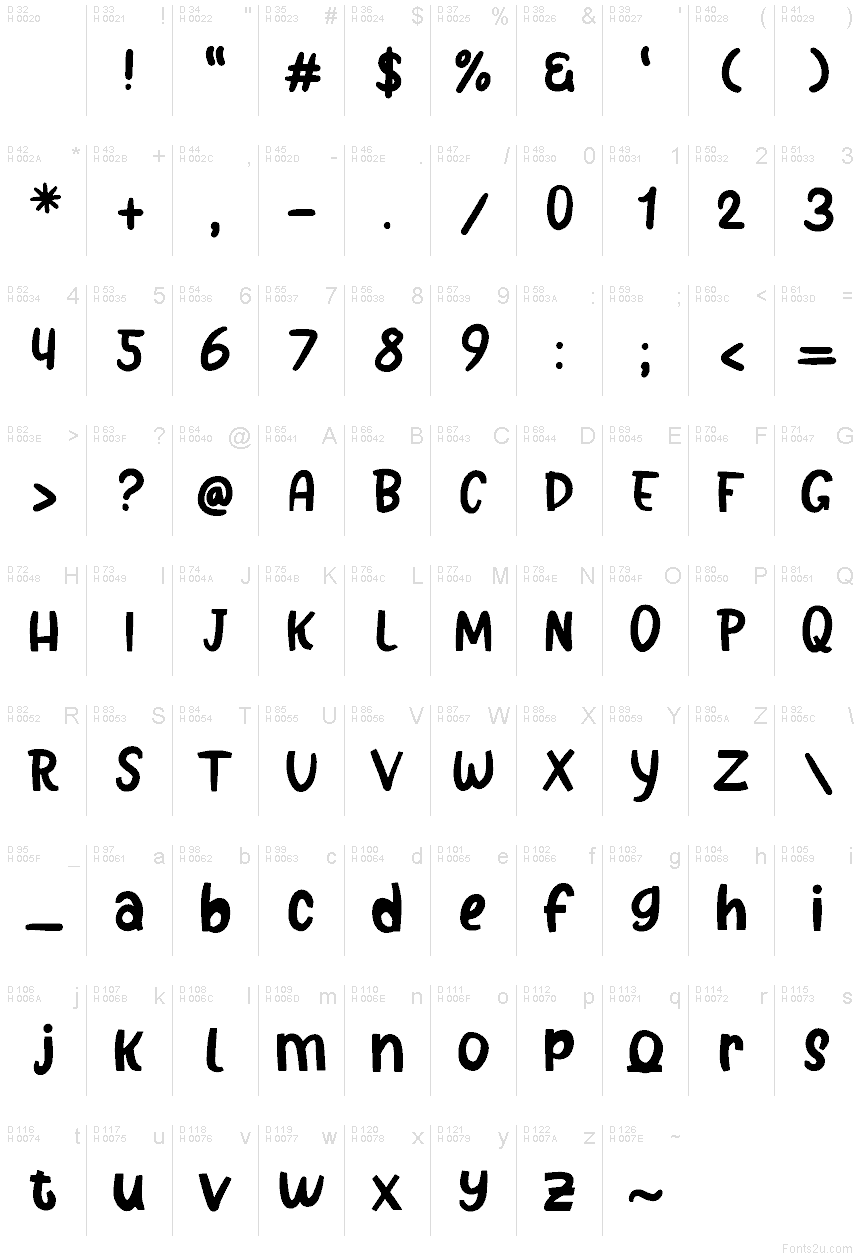
Sharkido font by Dhabee Studio is a free cartoon display typeface with a bouncy, hand-drawn energy that feels like it’s straight out of a Saturday morning show. The chunky, slightly distorted letters wobble just enough to feel mischievous without becoming messy, giving your titles a bold, inky presence that kids and playful audiences latch onto instantly. Its rounded shapes and tight rhythm make Sharkido read quickly, even when you push the size big and loud.
Using Sharkido, you can bring a fun, animated vibe to game logos, kids’ book covers, YouTube thumbnails, snack or candy packaging, birthday invitations, and classroom posters. This free font works beautifully when you keep it for headlines and pair it with a clean, simple sans serif for small text. Try generous spacing and bright colors behind Sharkido to really let those bubbly, sharky curves bite through the layout.